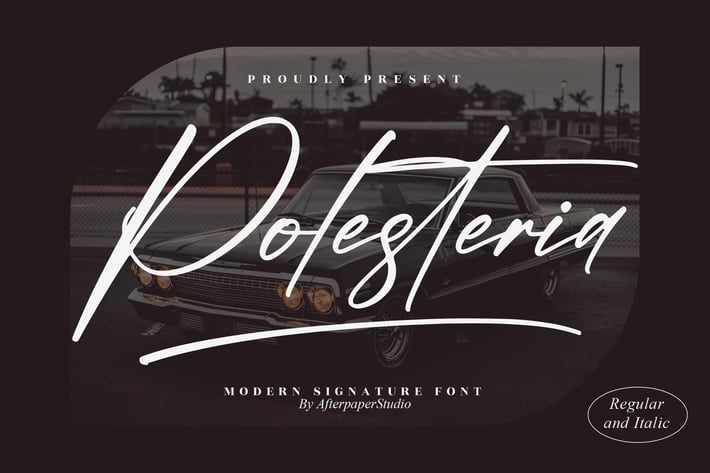
Polesteria Modern Signature Font
Polesteria is a modern signature script font crafted to bring an elegant handwritten touch to your digital and printed creative projects. Its smooth, stylish strokes make it perfect for branding, social media posts, posters, invitations, personal projects, and any design that requires a premium signature feel. Includes both Regular and Italic styles for versatile use.
Modern signature script style
Elegant and smooth handwriting
Perfect for branding, logos, and editorial designs
Great for social media quotes and invitations
Comes with Regular & Italic versions